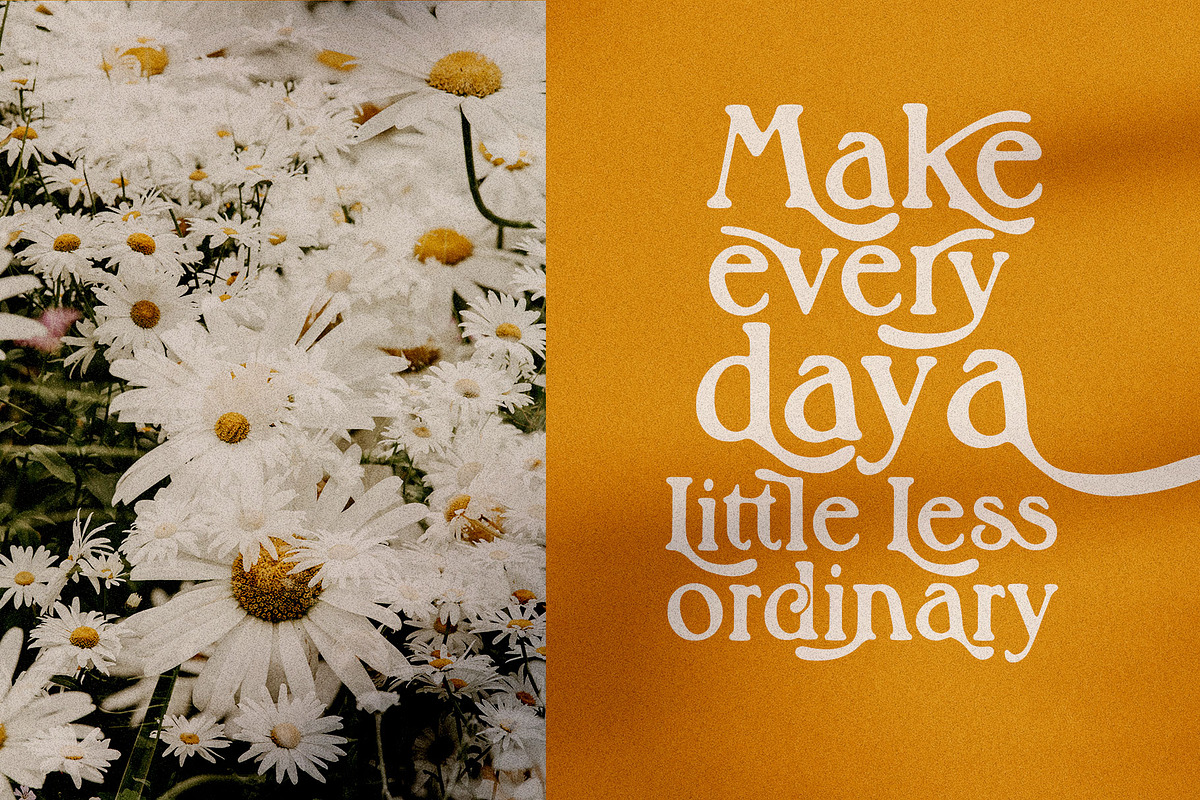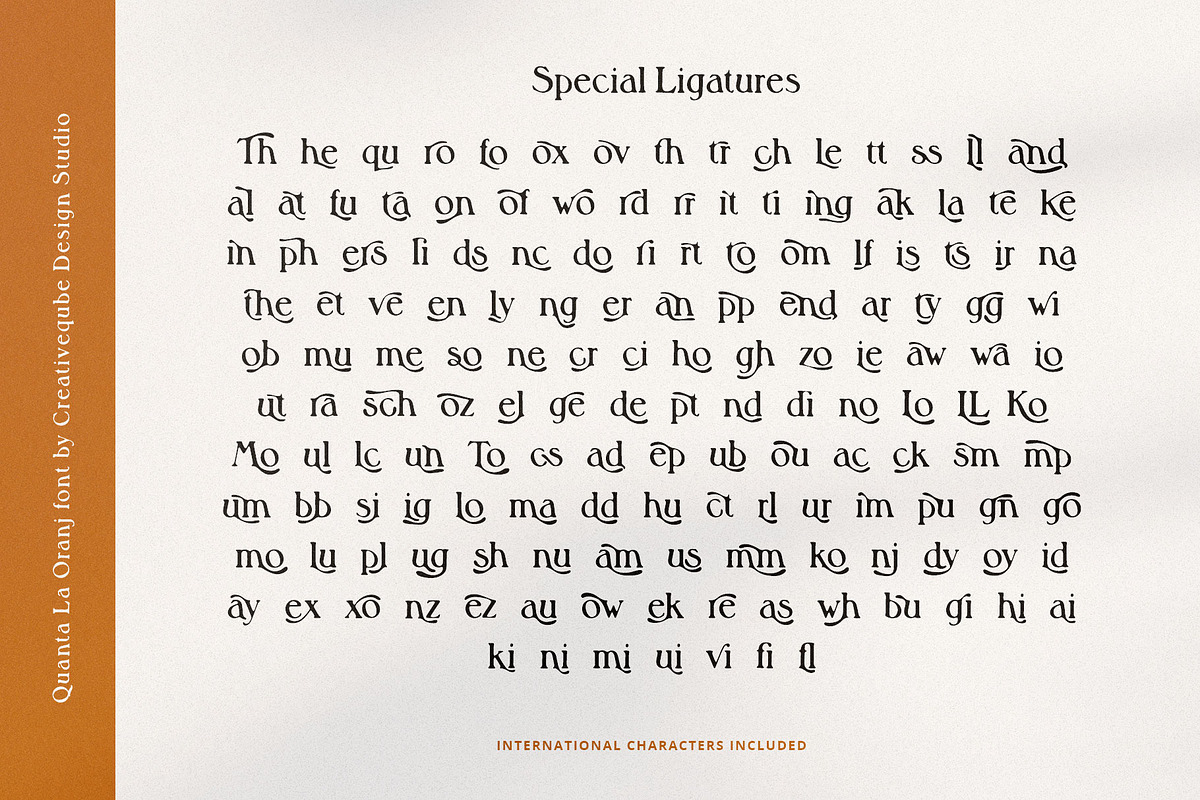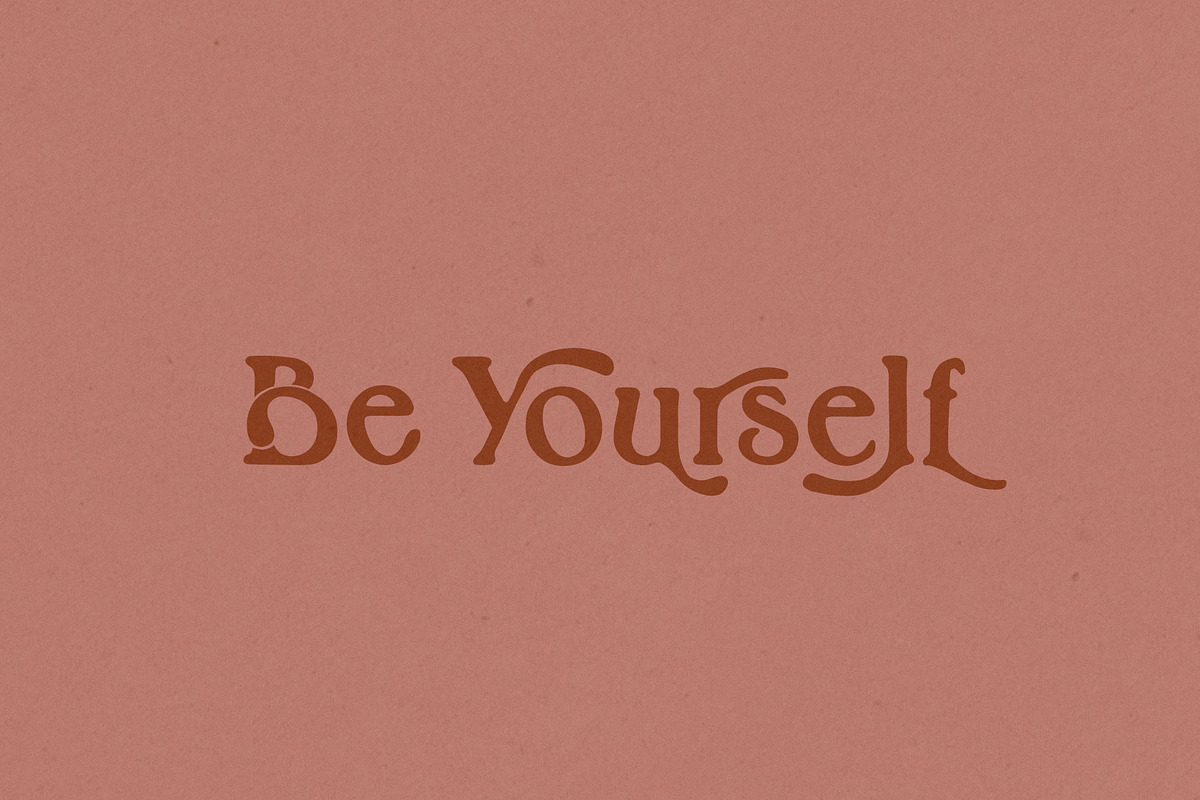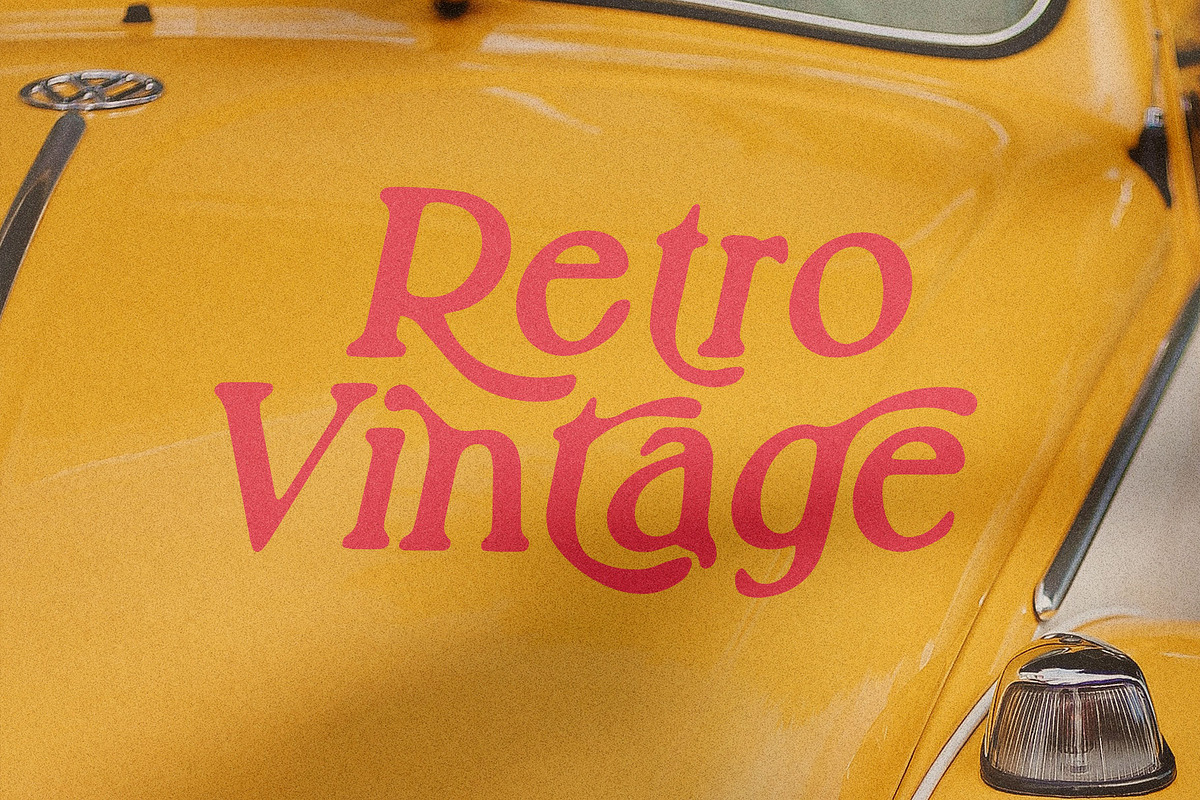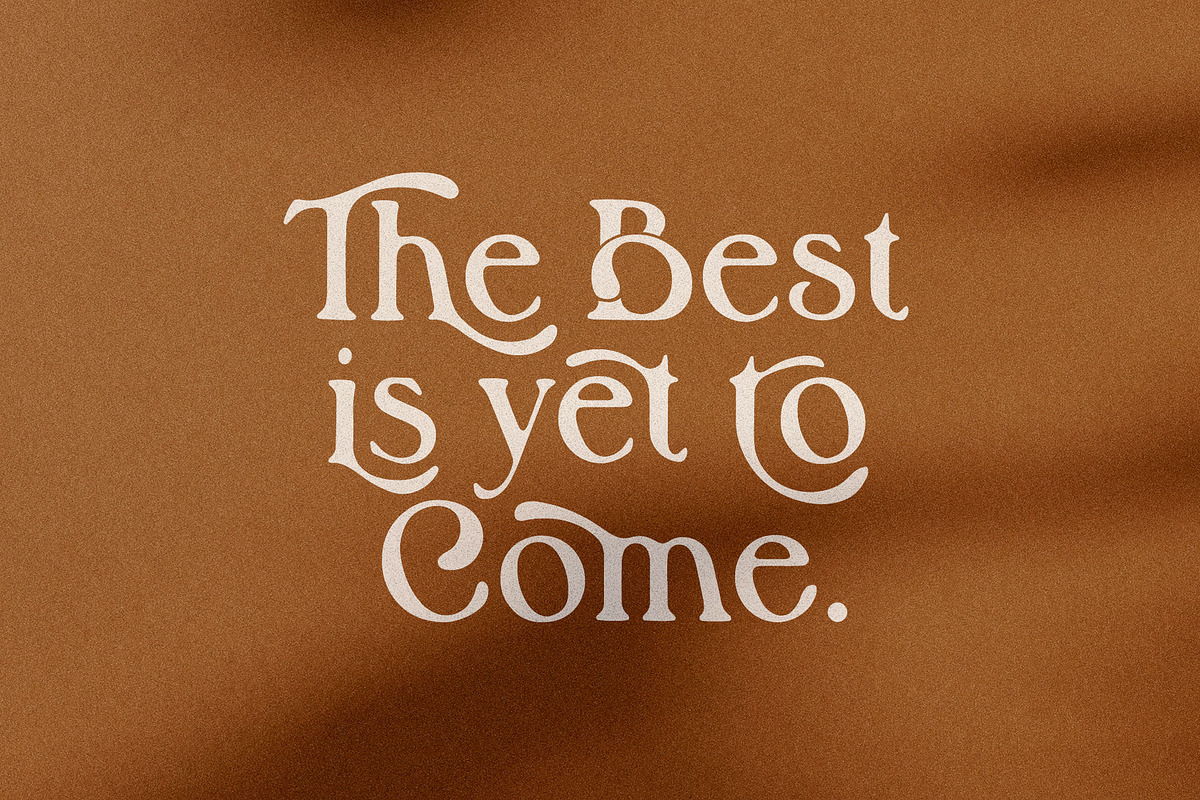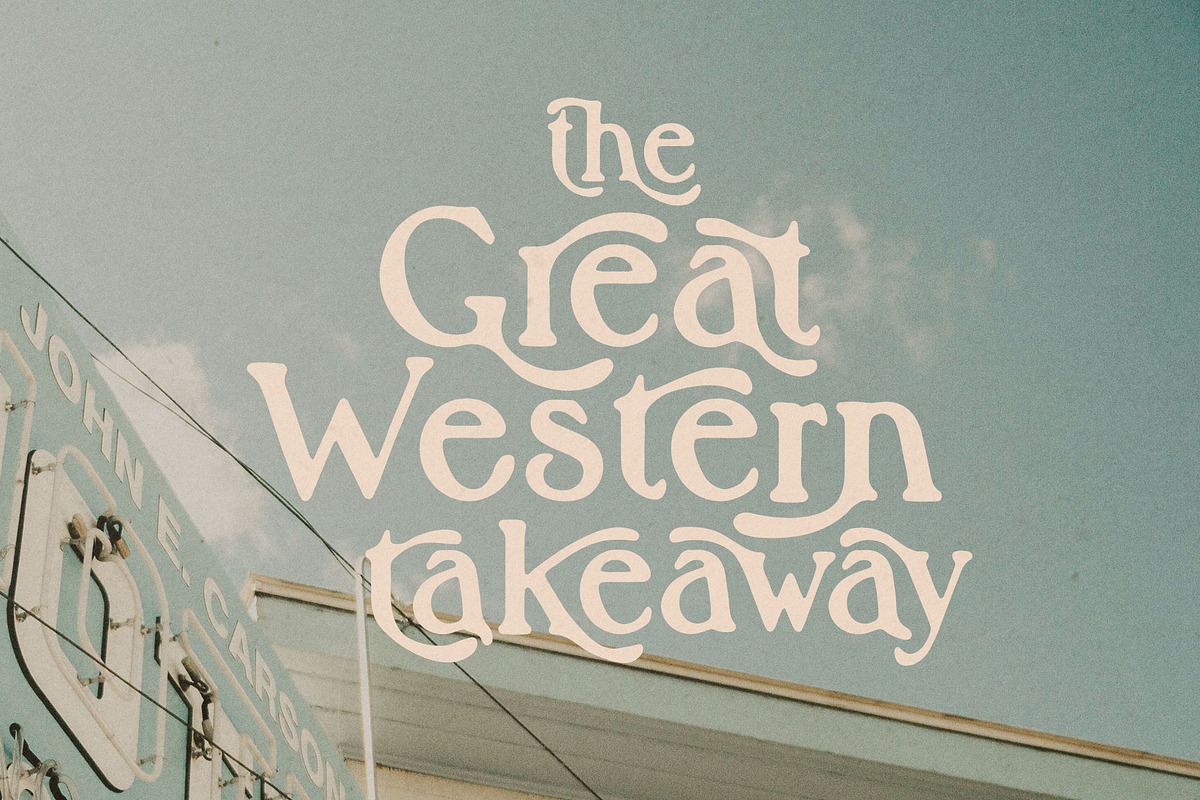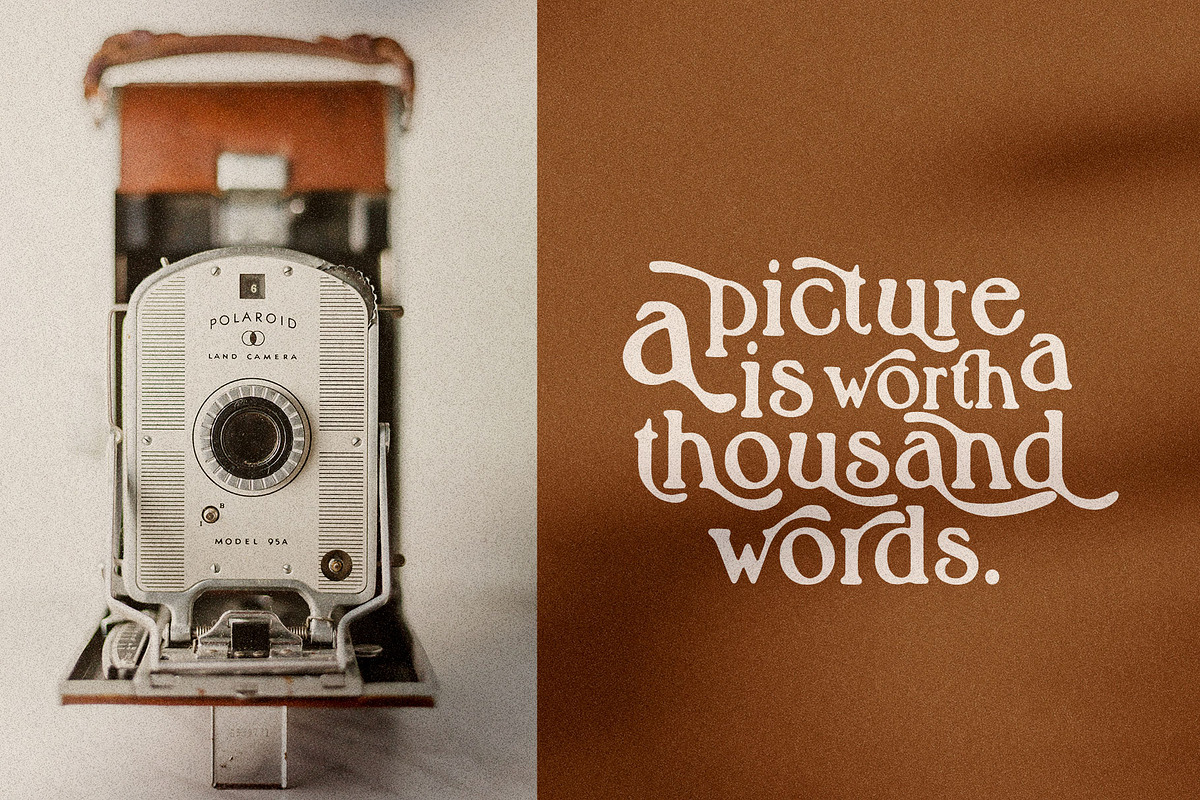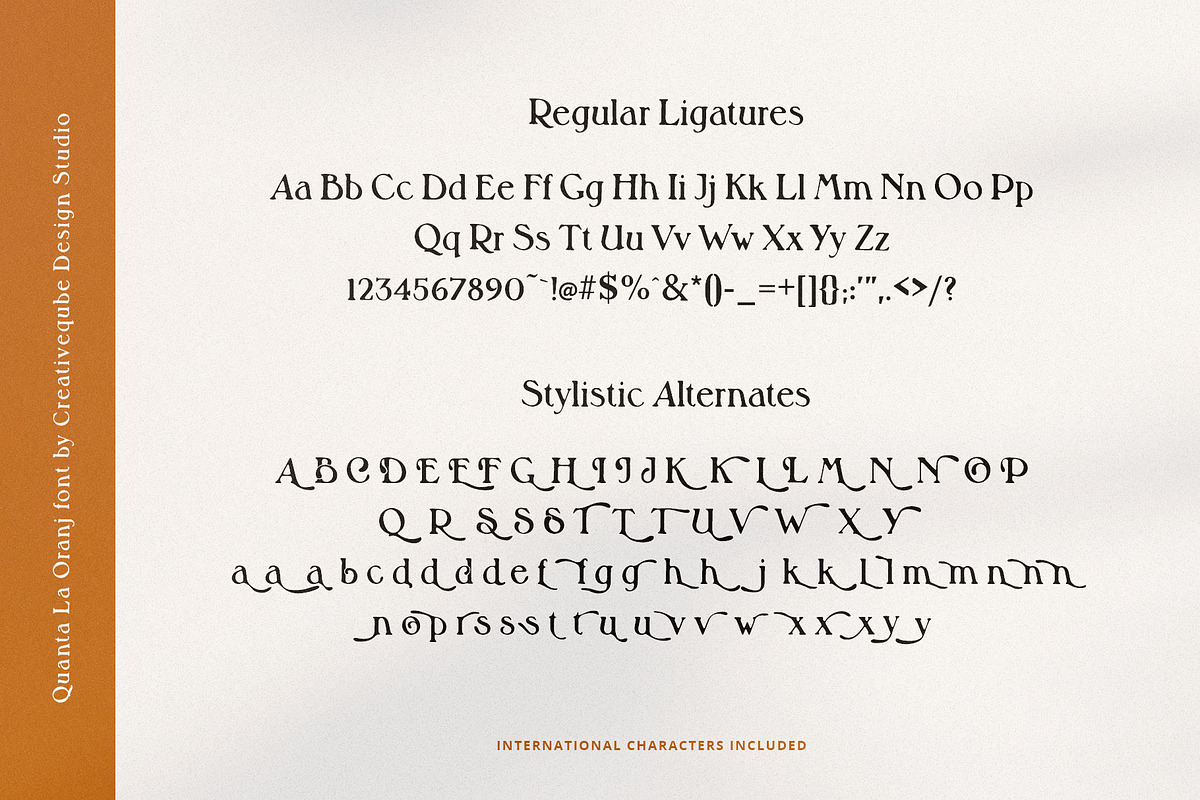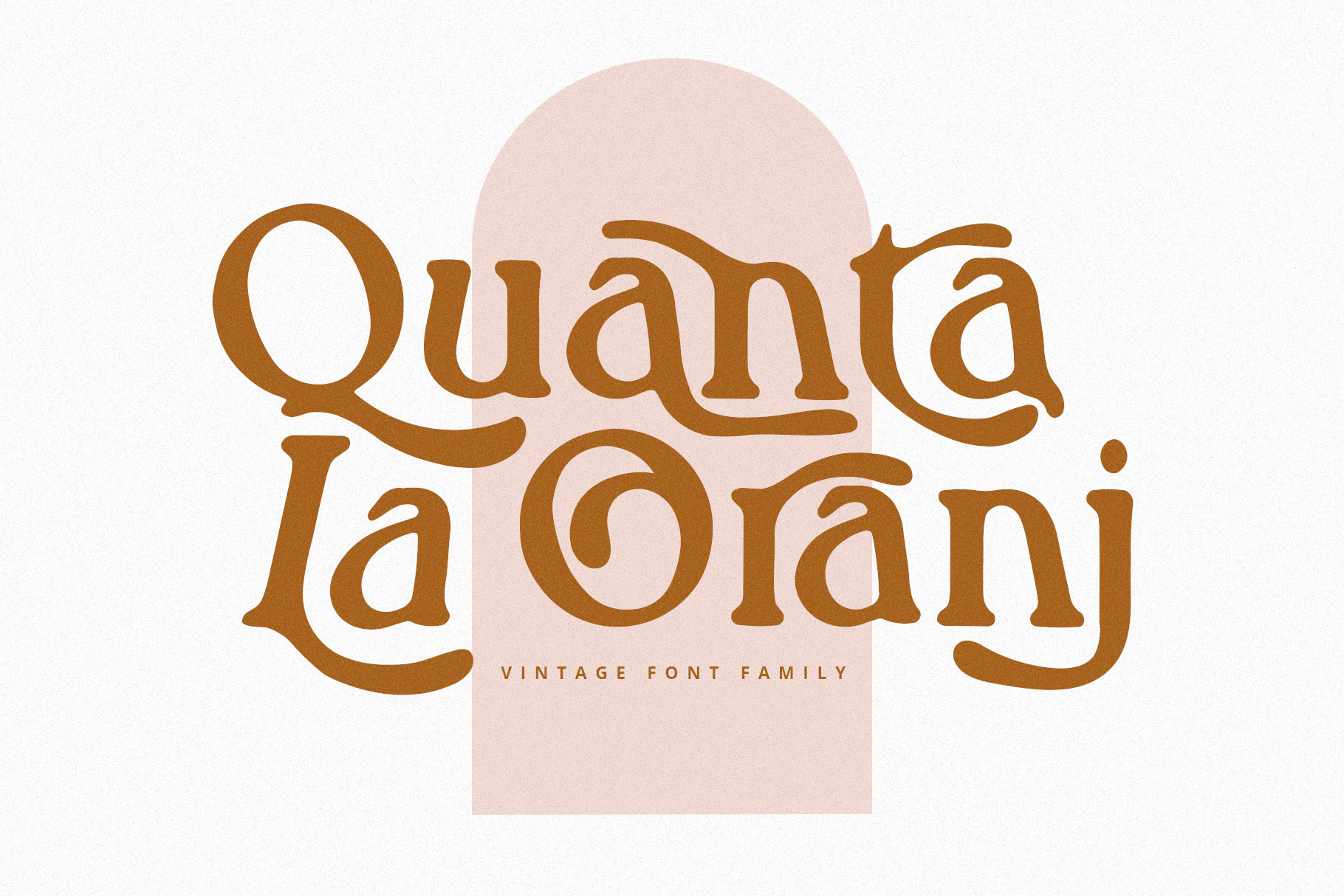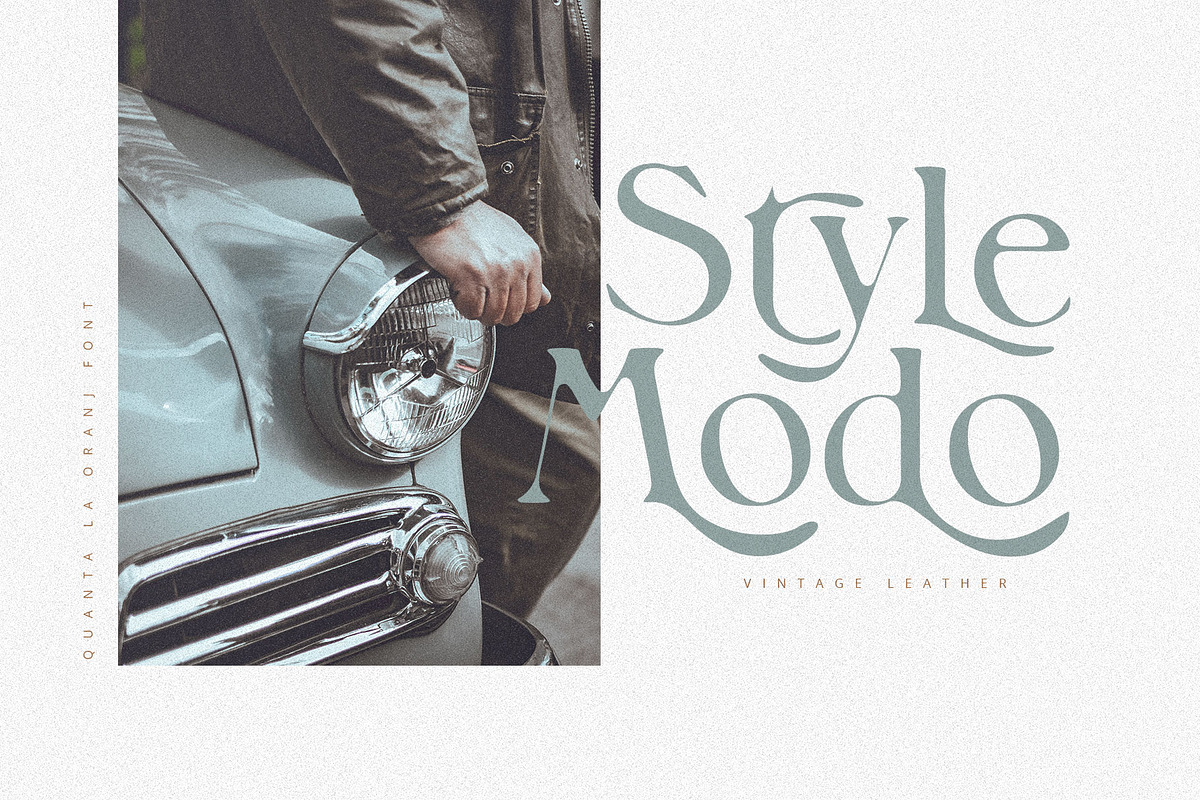
Quanta La Oranj Vintage Serif Font
Quanta La Oranj is a genuine vintage serif font loaded with alternates and ligatures that makes for stunning logos, quotes, wedding invites, blog posts, Instagram, and more! I have hand drawn every ligature so no letter is perfect and every ligature is unique. The true vintage vibe.
Quanta La Oranj includes a full set of lowercase and uppercase alternates for each letter, plus some extra alternates, and hundreds of special ligatures. It comes in Regular, bold, light, italic and Bold italic.